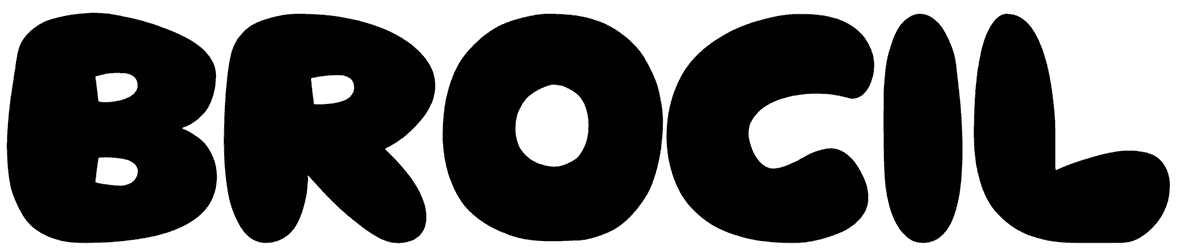
Brocil Font
Brocil is a fun and playful balloon font with a chubby look that is perfect for adding a touch of whimsy to any project. Whether you’re creating posters or greeting cards, Brocil is sure to grab attention and put a smile on people’s faces.